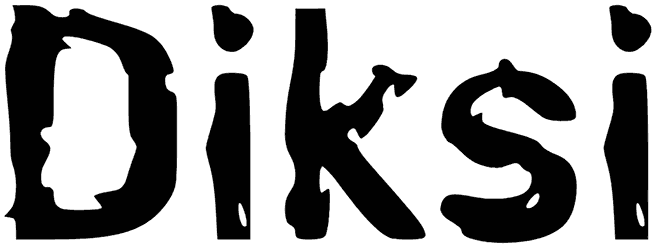
d Diksi Font
Are you looking for an excellent option to diversify your collection? So why not try d Diksi? This distorted font gives your writings a state as if underwater and will create a wave-like image of them. With this fancy font, you can create bold, gorgeous headlines with delicate designs that radiate old talent and will appeal to every taste.